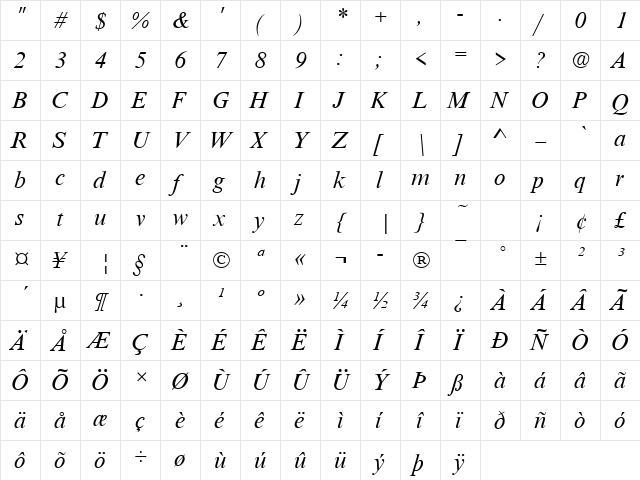
NimbusRomNo9T Italic
Design Context for NimbusRomNo9T Typeface
NimbusRomNo9T takes a measured approach to typography — its balanced proportions and neutral character make it a reliable workhorse for both digital and print work. The slanted form adds forward momentum and visual energy.